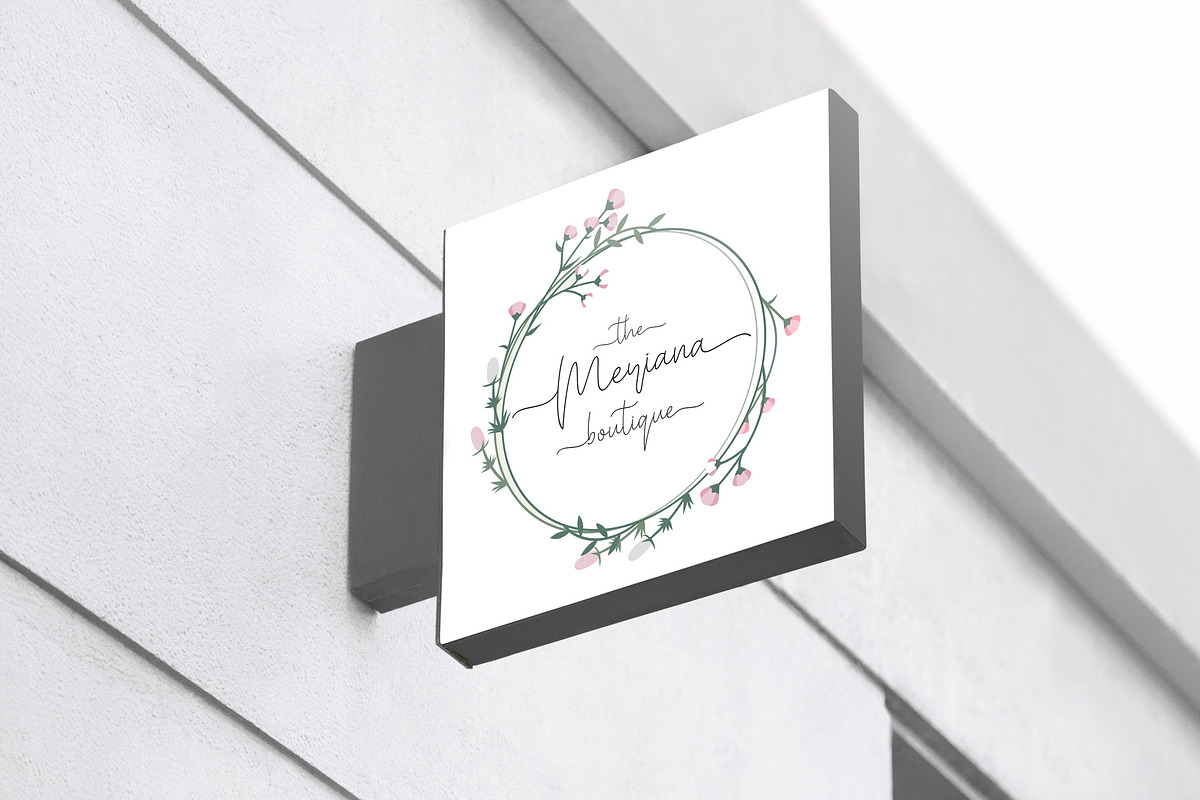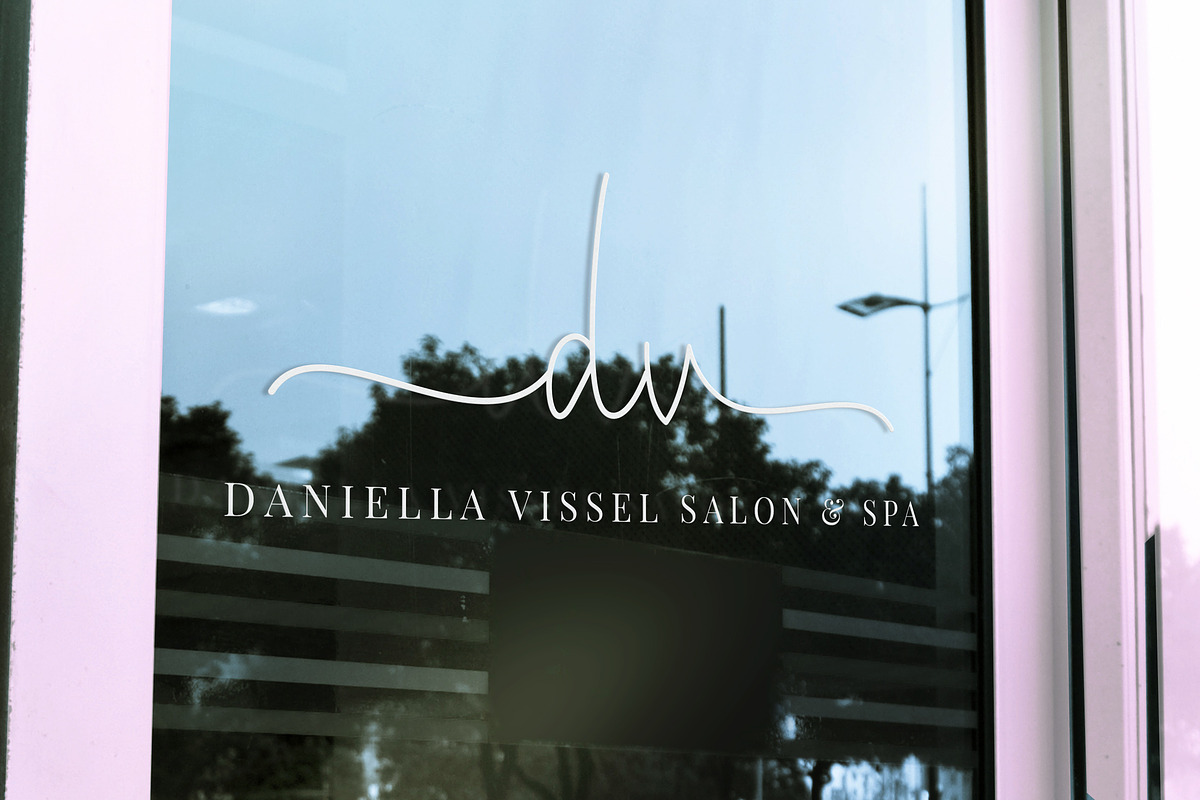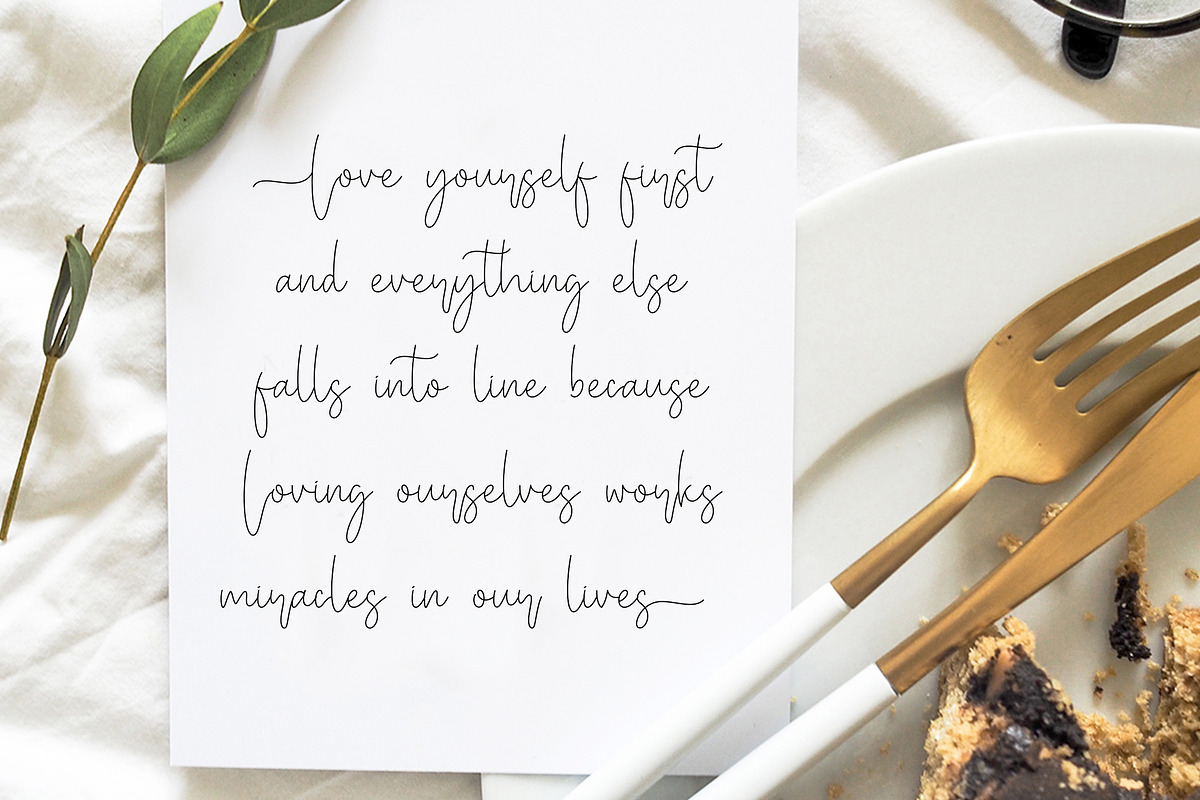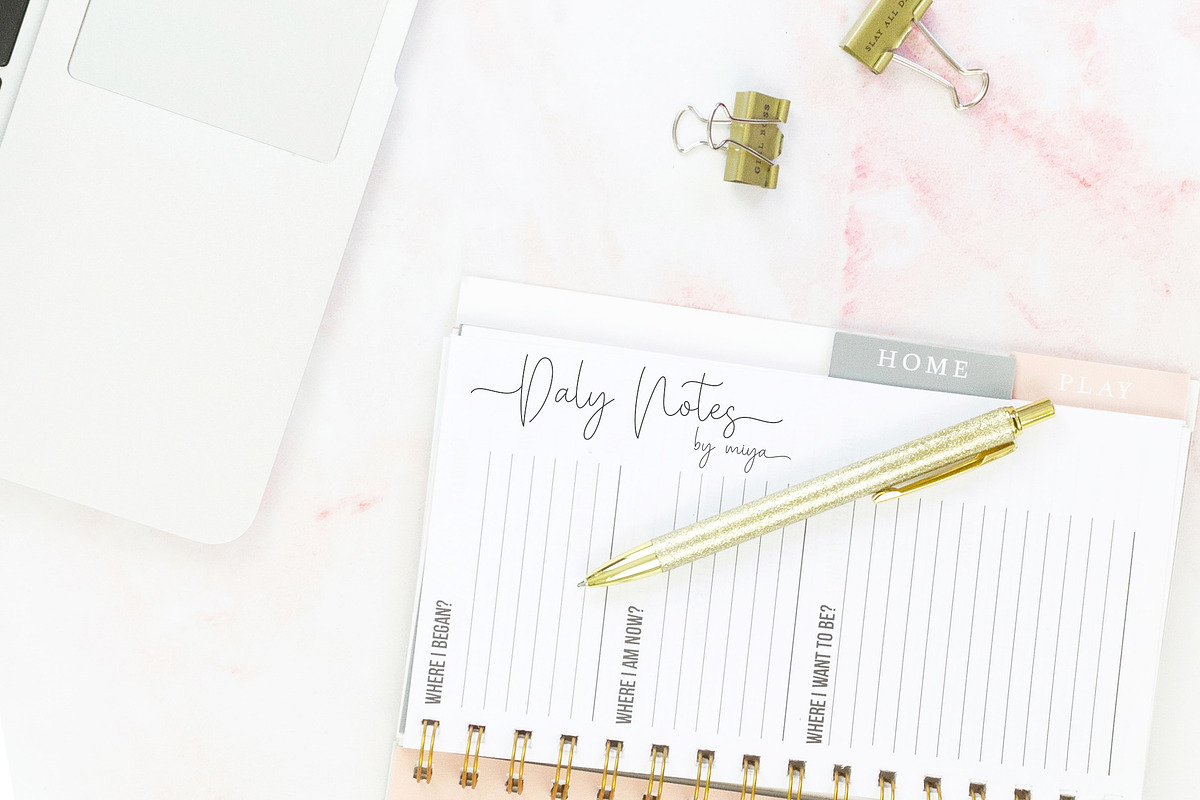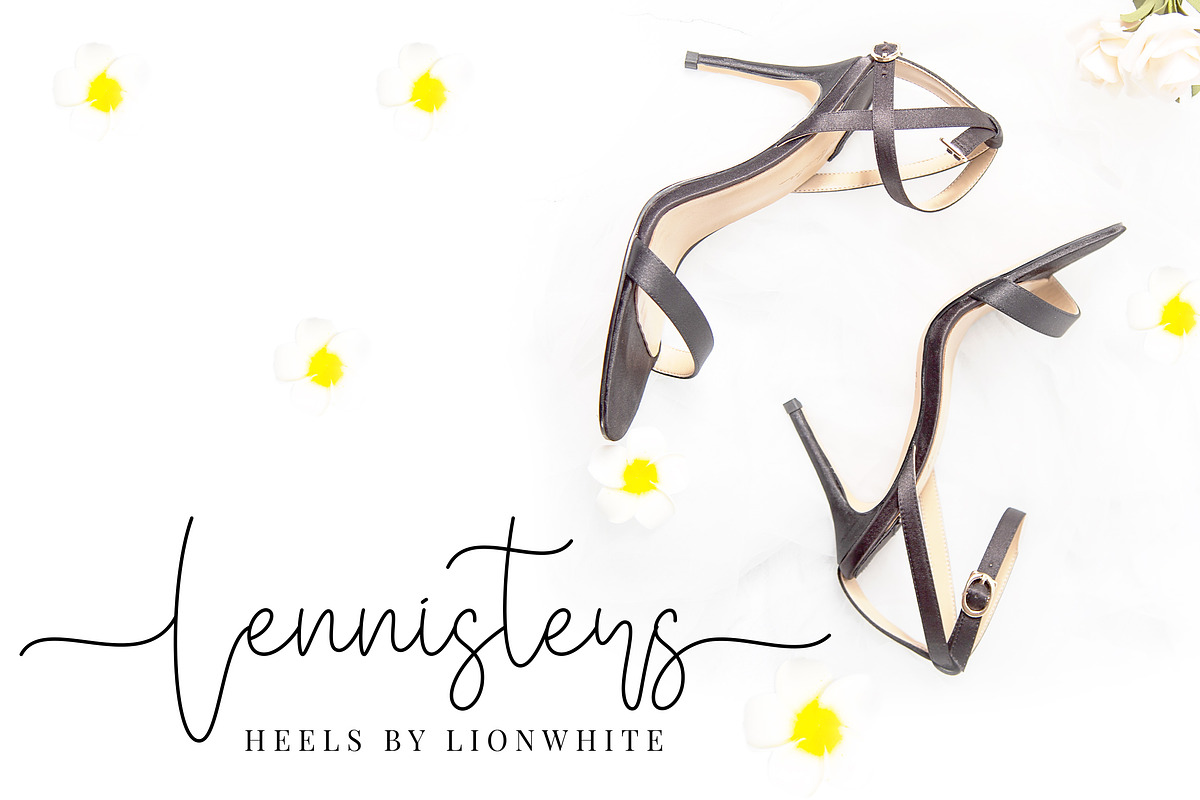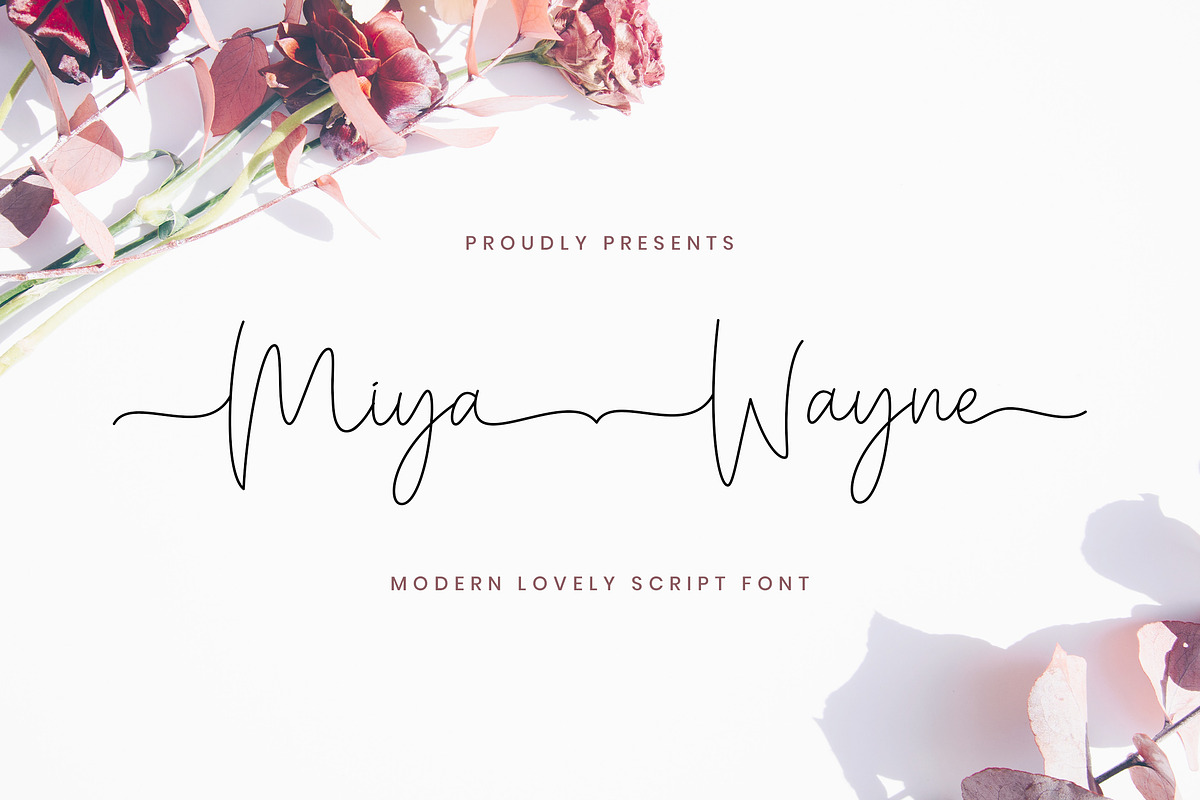
Miya Wayne - Lovely Script Font
Introducing Miya Wayne - Modern Lovely Script Font
Miya Wayne is a Monoline Lovely Script Font with Handwritten Signature Style. The Miya Wayne font was created with original handwritting pen. This font is perfect for fashion brand, wedding invitation, business card, logo brand, signature, and then calligraphy.
- This Font Template contains Classy, Elegant, Creative, Cool and has a Unique Concept.
Miya Wayne - Lovely Script Font by StringLabs fits naturally into Branding, posters, packaging, typography.